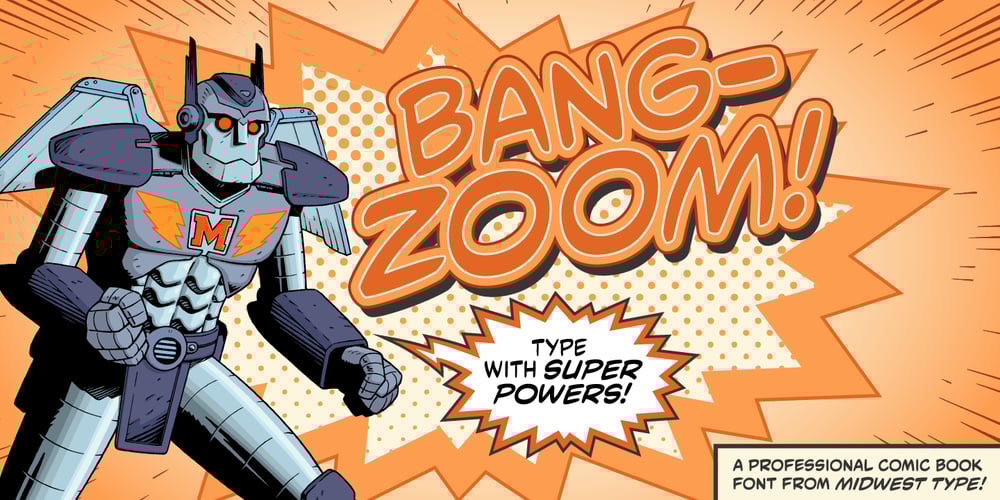
Bang Zoom
Bang Zoom font
Bang Zoom Font Family was designed by Jesse R. Ewing and published by Midwest Type. Bang Zoom contains 4 styles and family package options. Bang-Zoom! is a traditional comic book font based on lettering by award-winning illustrator and letterer Galen Showman. Its five weights and styles and smart OpenType features allow for professional comic book typesetting.